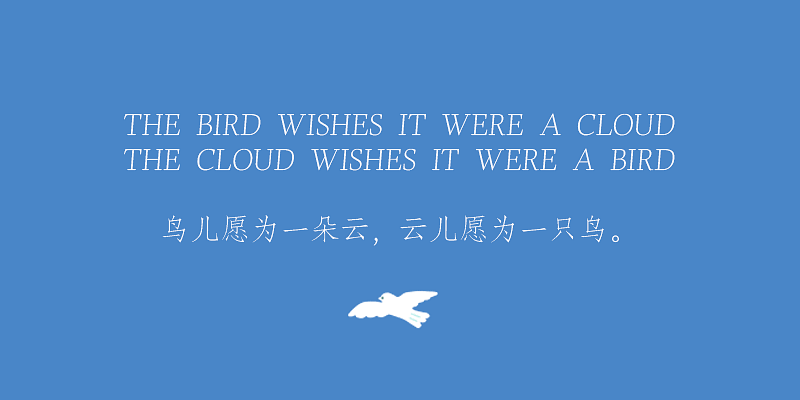
HelloFont ID Dian Fang Song Font Free Download is a modern, refined serif typeface with a clean, traditional feel. Its elegant strokes and balanced letterforms make it perfect for a wide variety of applications, including branding, editorial designs, invitations, and packaging that require both clarity and a touch of sophistication.
HelloFont ID Dian Fang Song Font is highly versatile, working beautifully for both large display text and smaller body copy. It integrates smoothly with popular design tools like Adobe Illustrator, Photoshop, Figma, and Canva, providing flexibility for both print and digital designs.